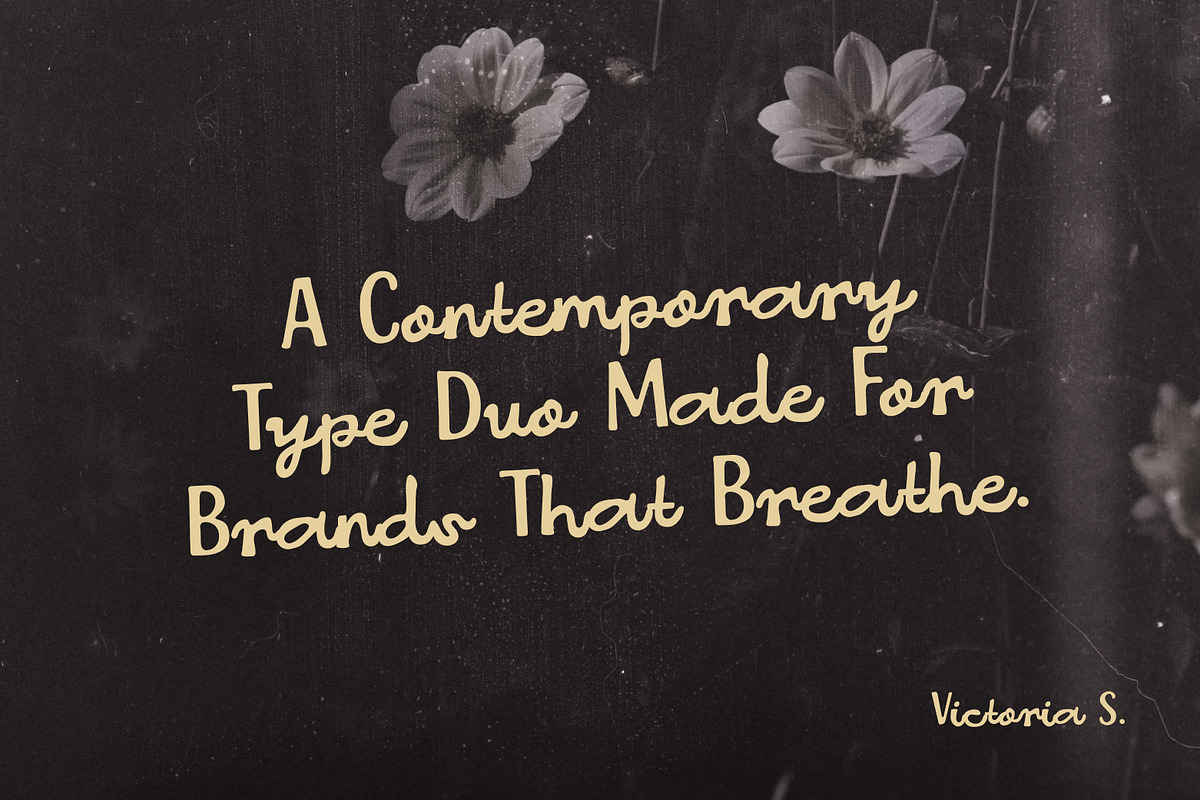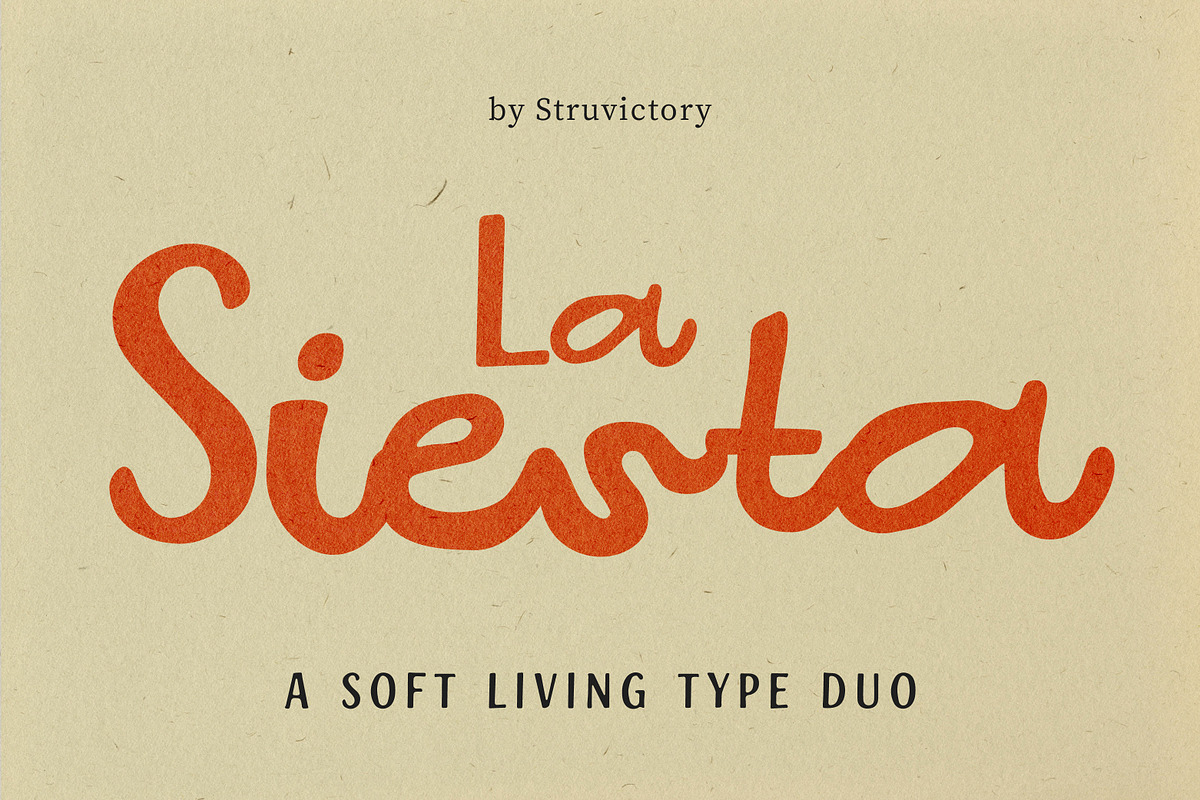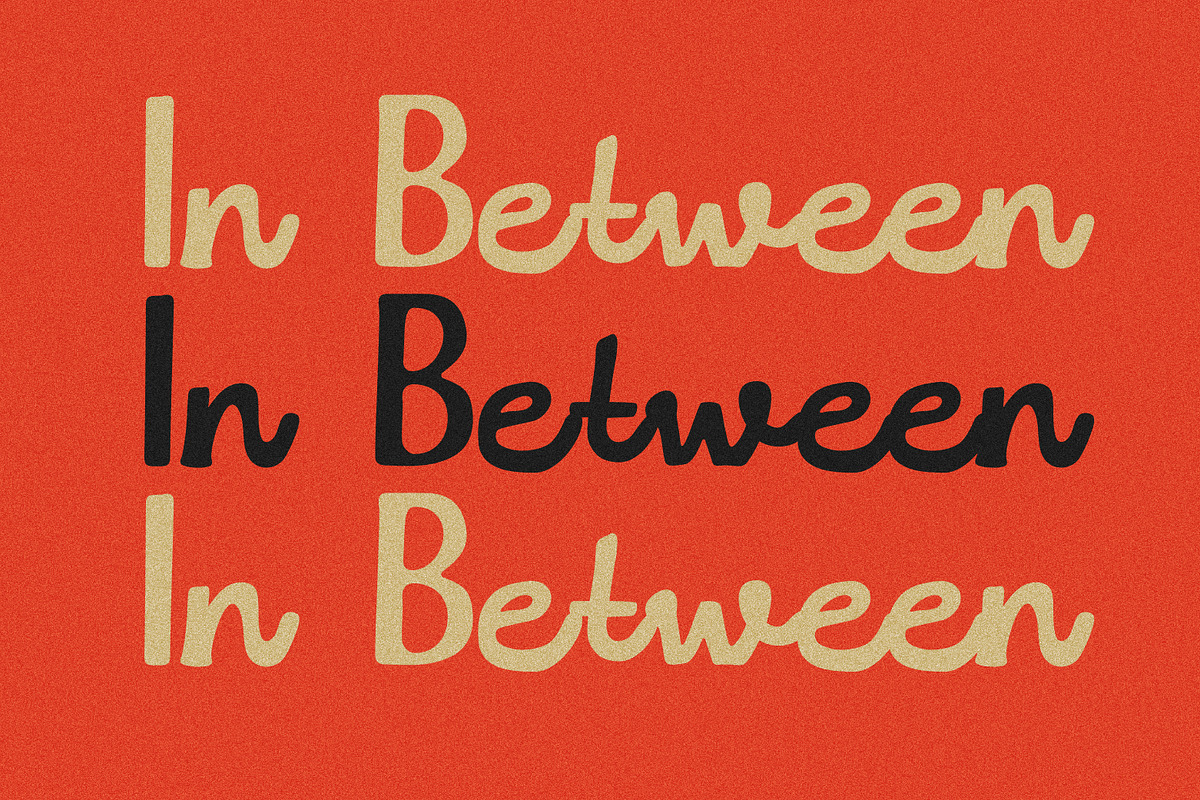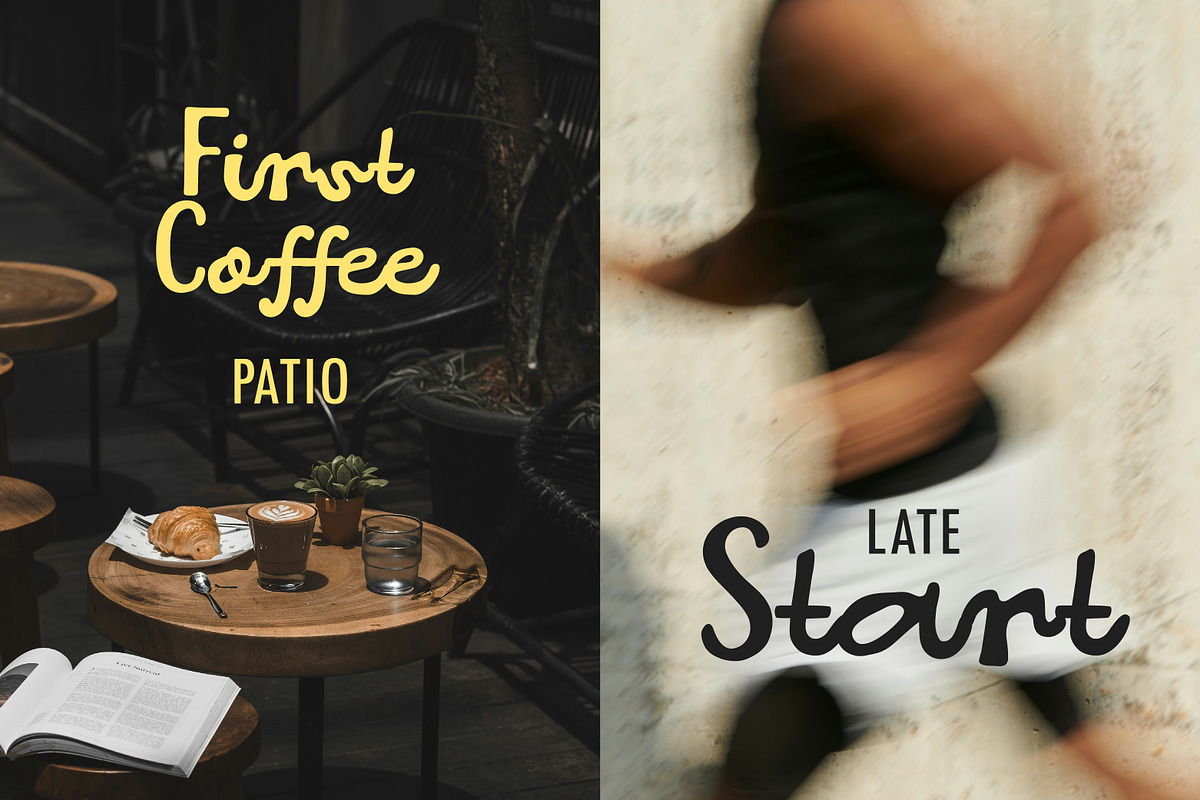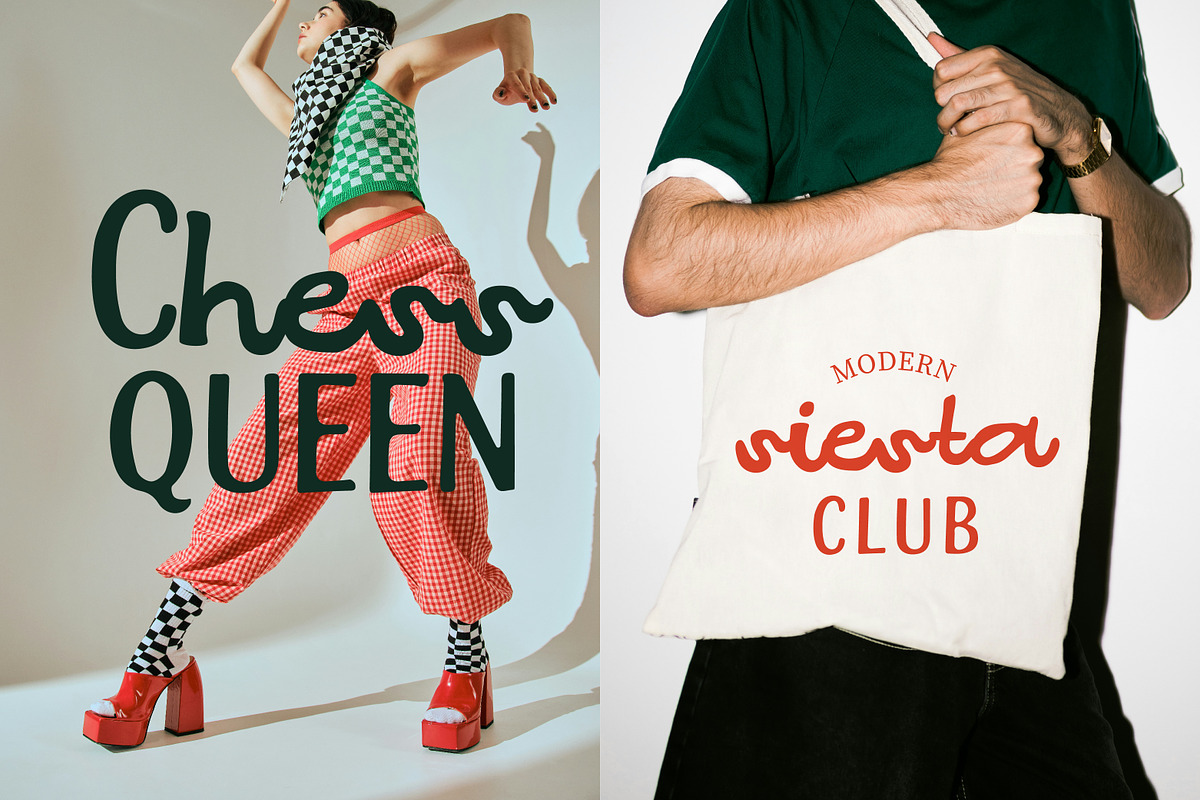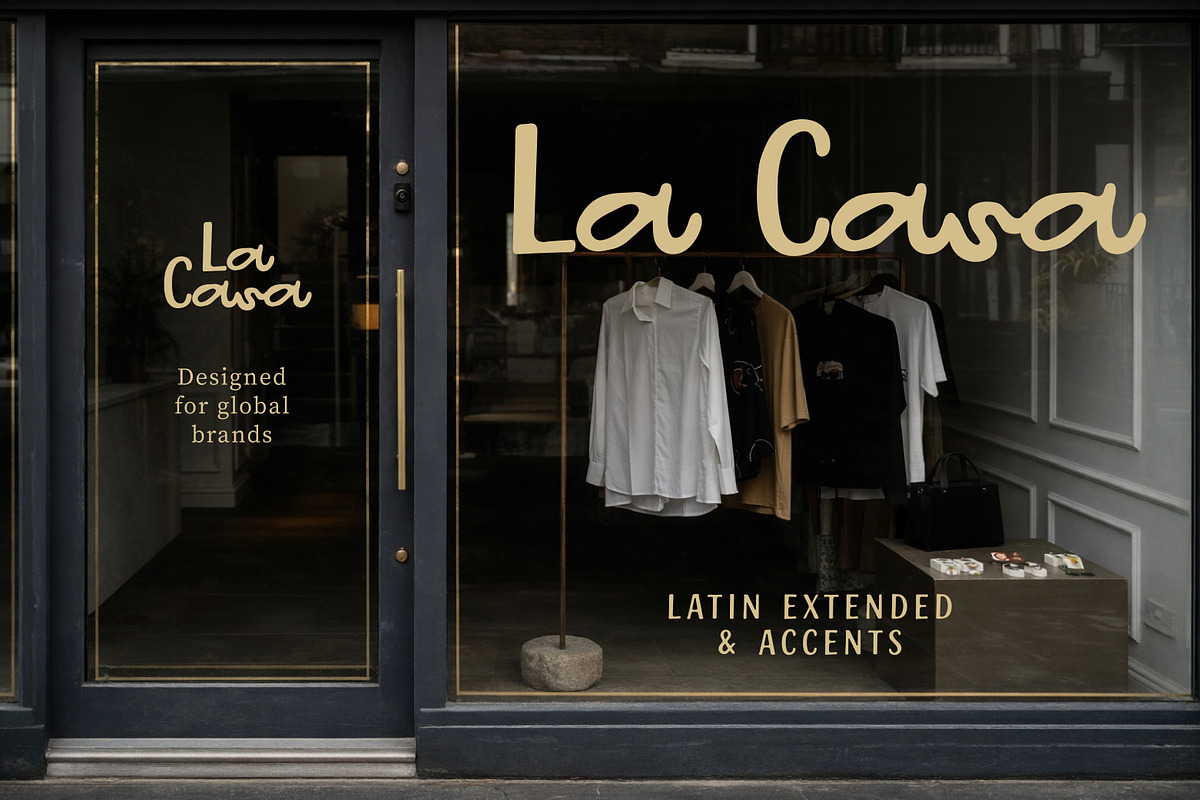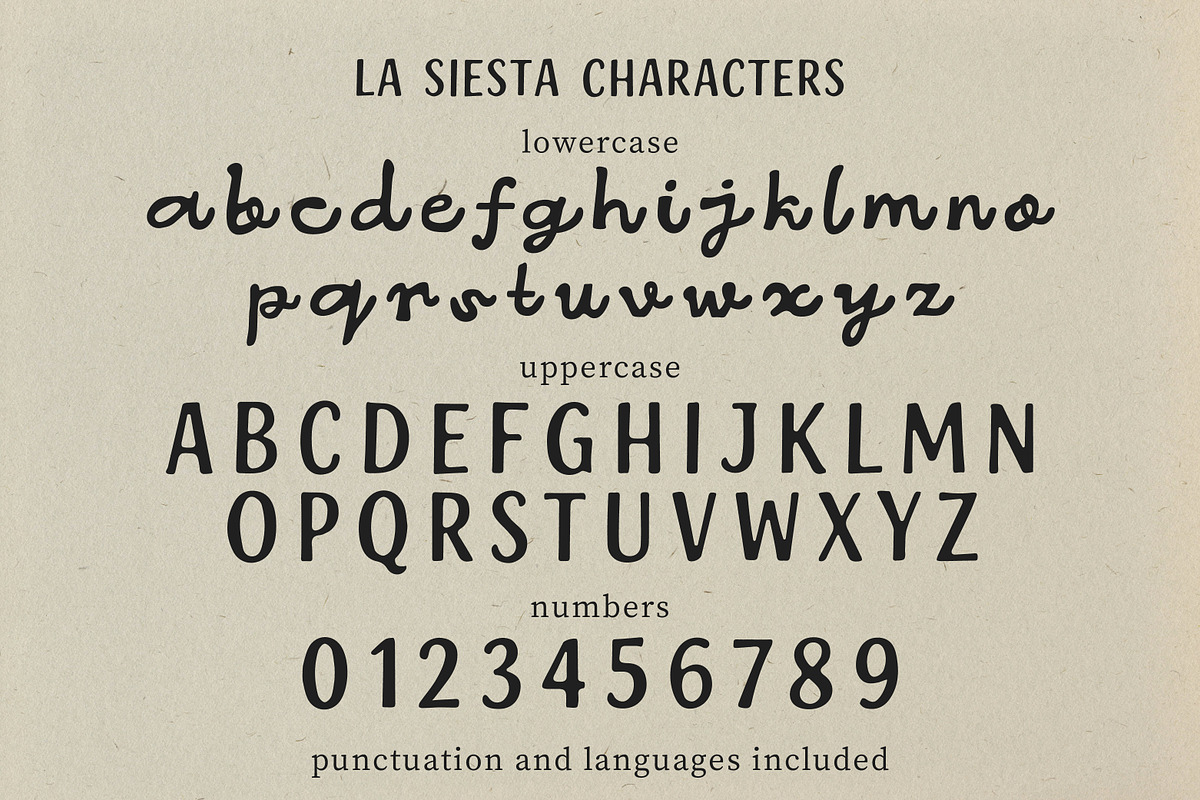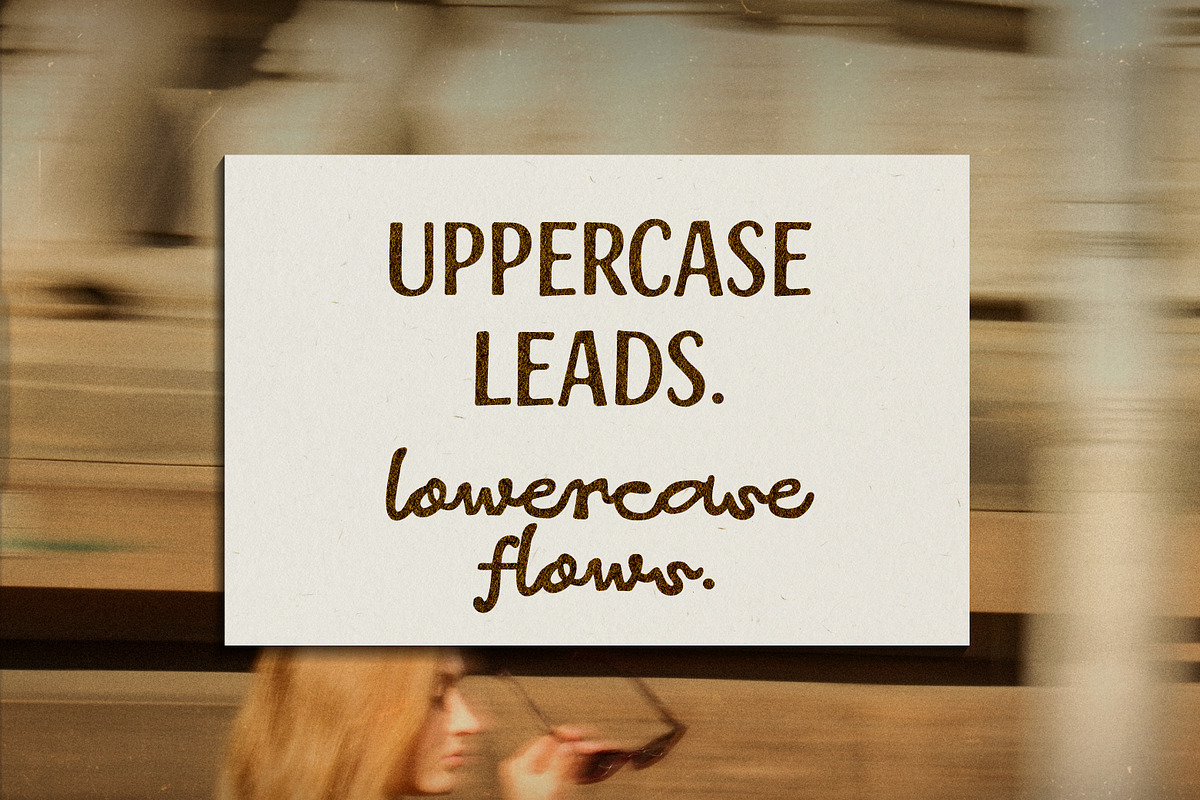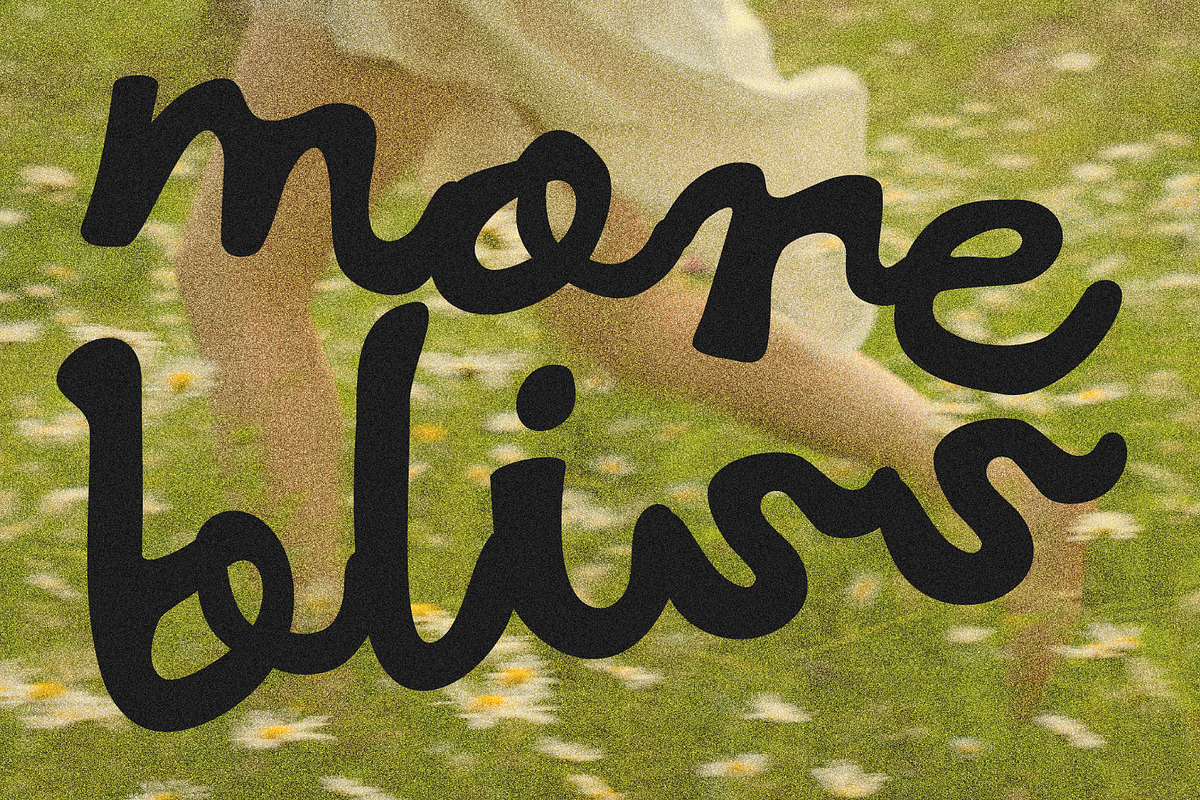
LaSiesta Handwritten Duo Sans Script
La Siesta is a contemporary type duo that pairs confident uppercase letters with an effortless handwritten lowercase. Designed for modern branding, it brings together structure and softness in one easy rhythm. The contrast between bold forms and relaxed script creates a natural flow that feels warm, stylish and highly usable. Perfect for logos, packaging, social media, editorials and storefronts, La Siesta works beautifully in lifestyle, fashion, beauty and hospitality projects. With multilingual support and carefully balanced letterforms, it’s a versatile duo made for expressive, sunlit design.